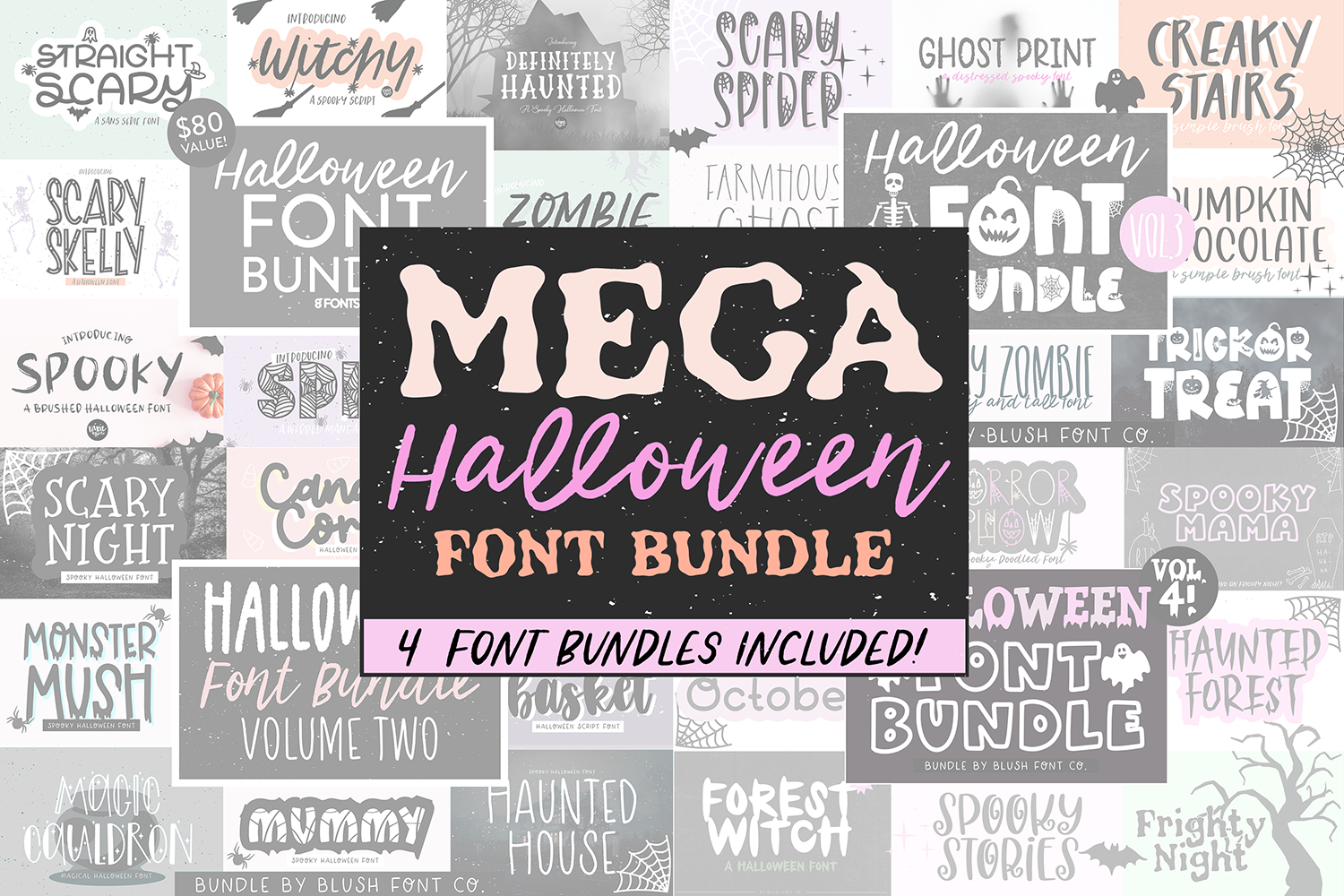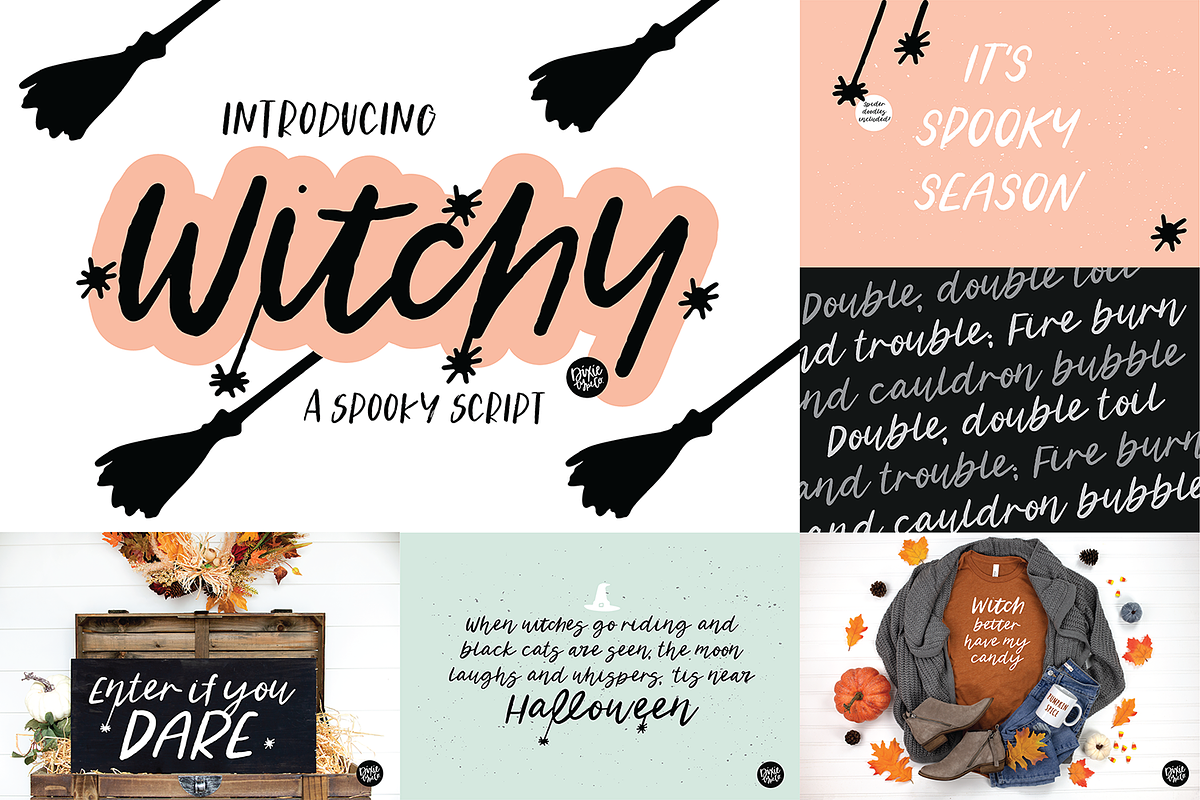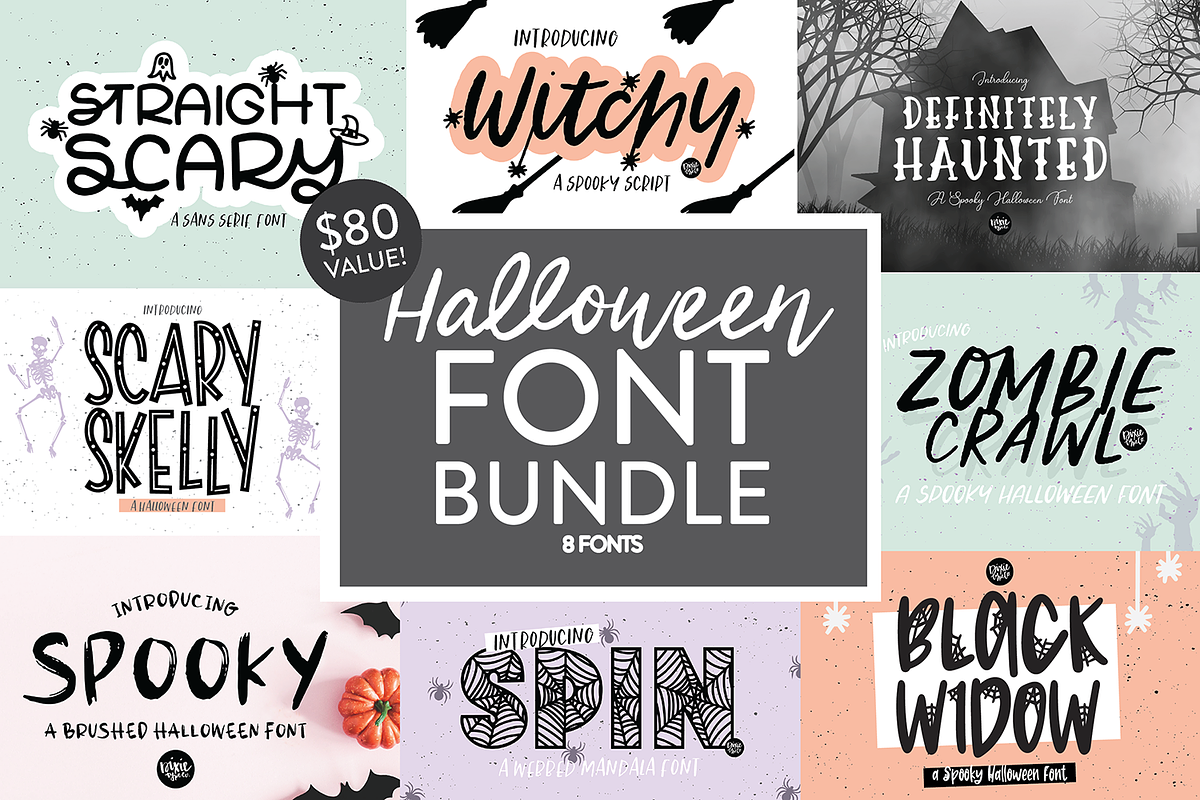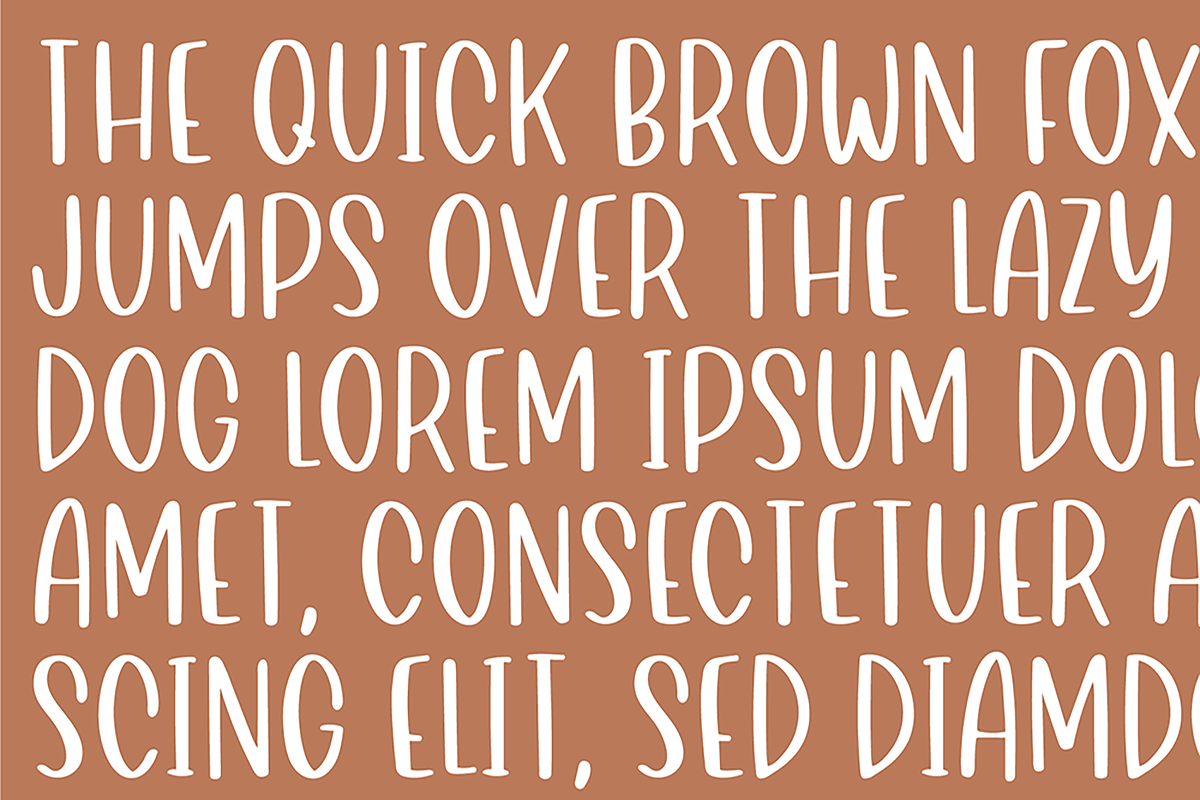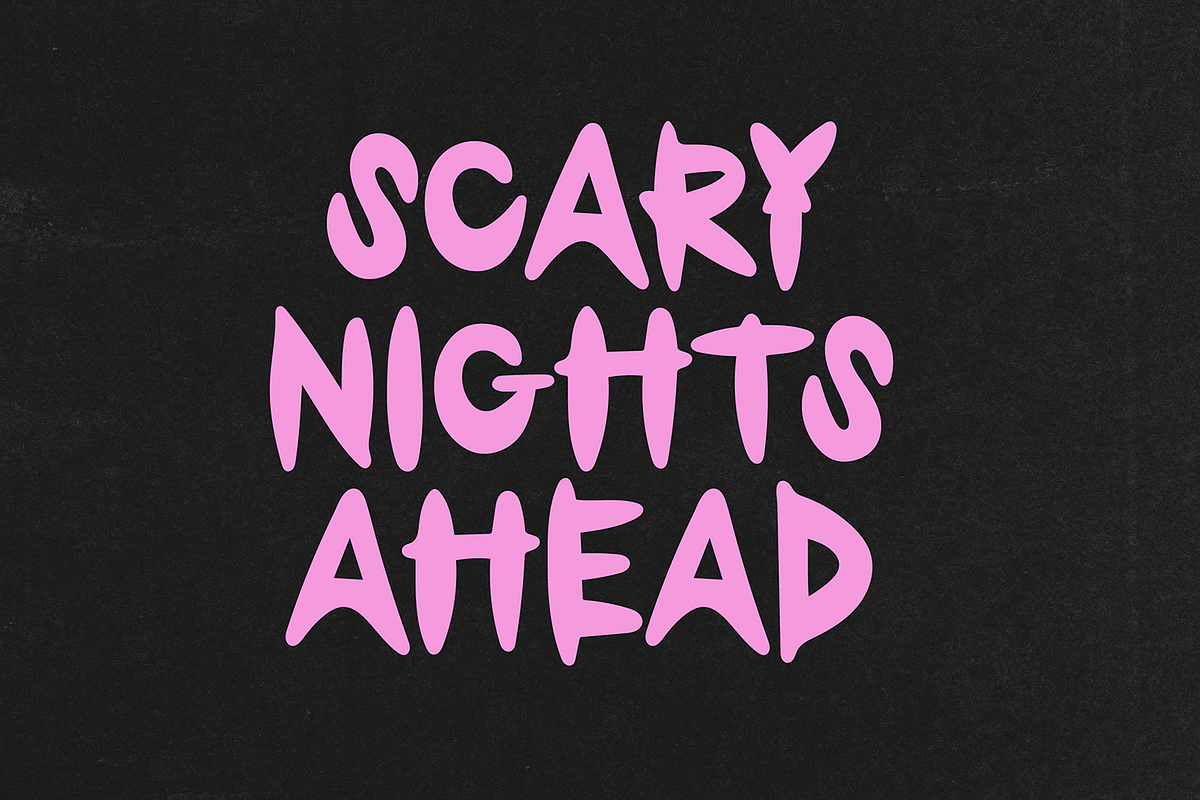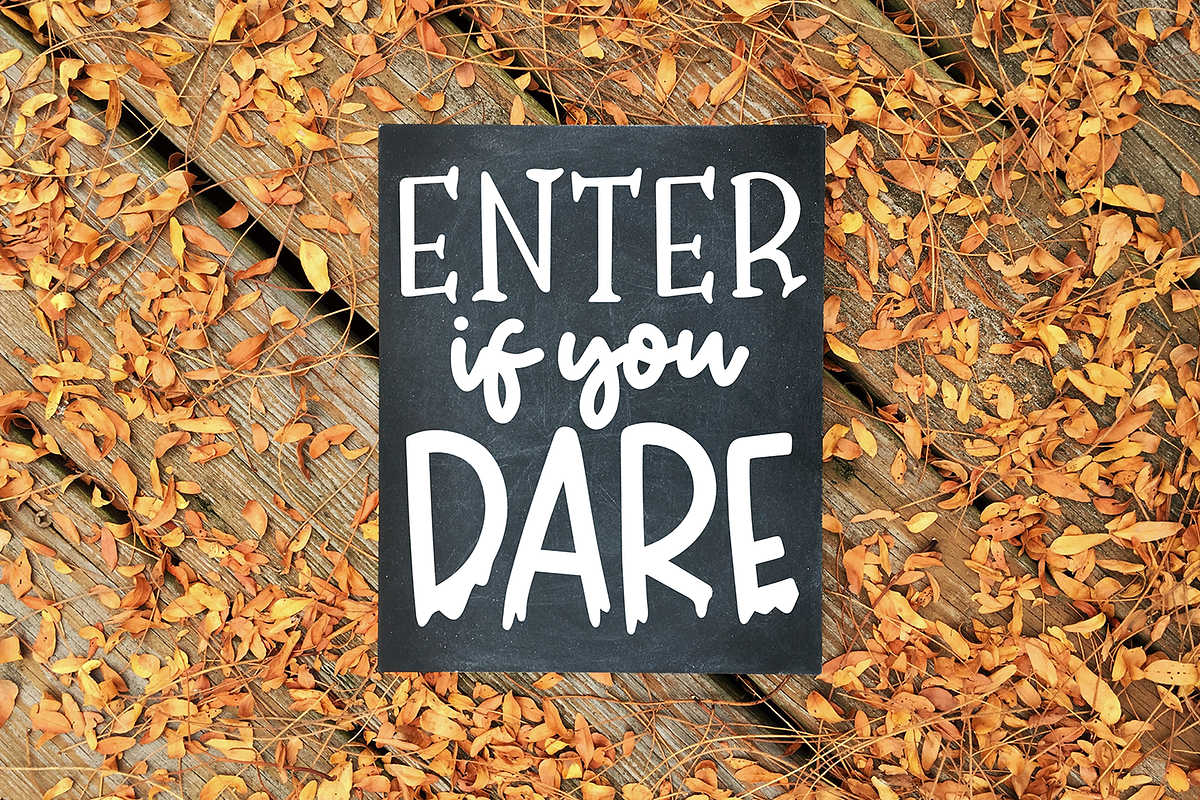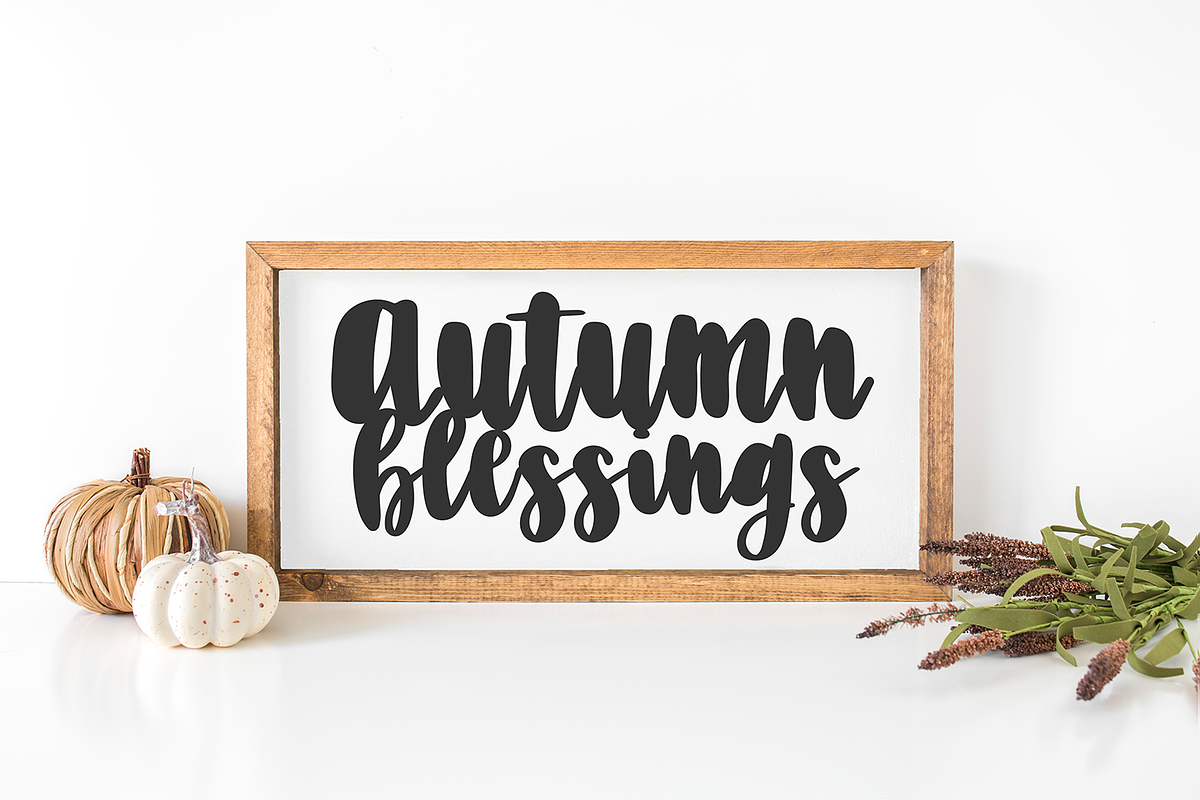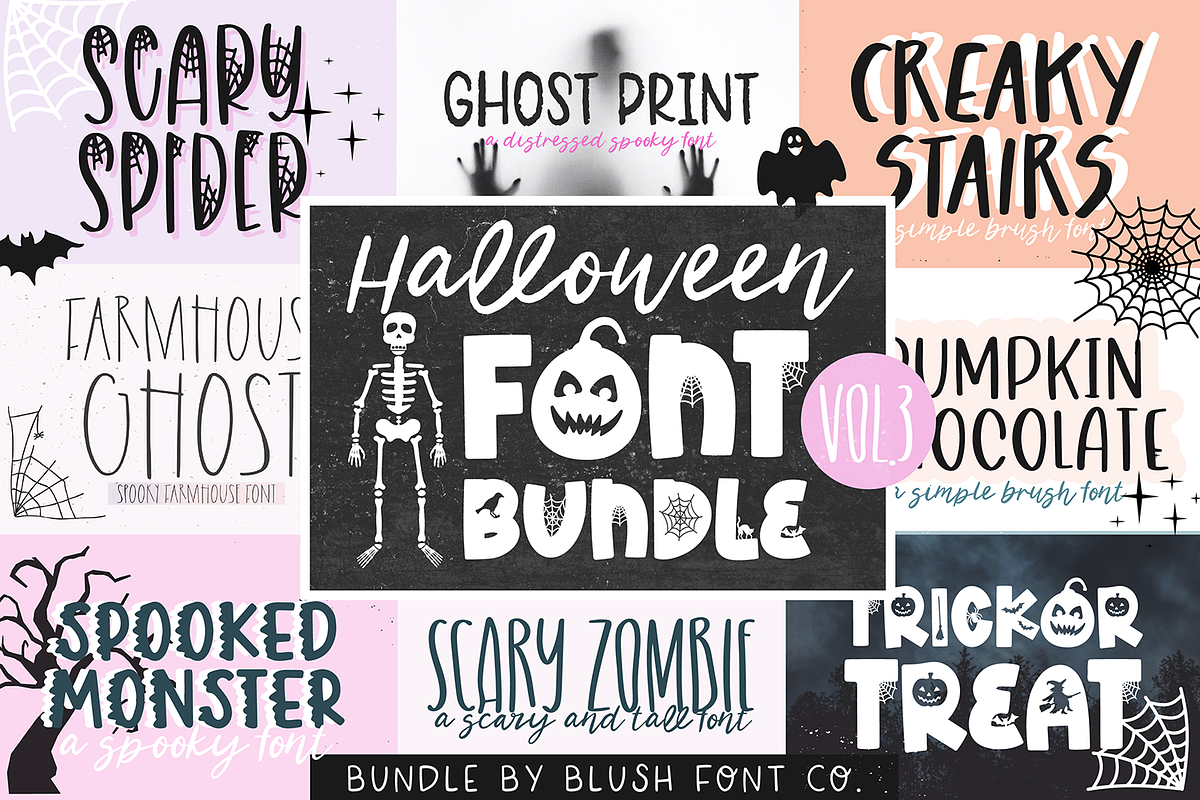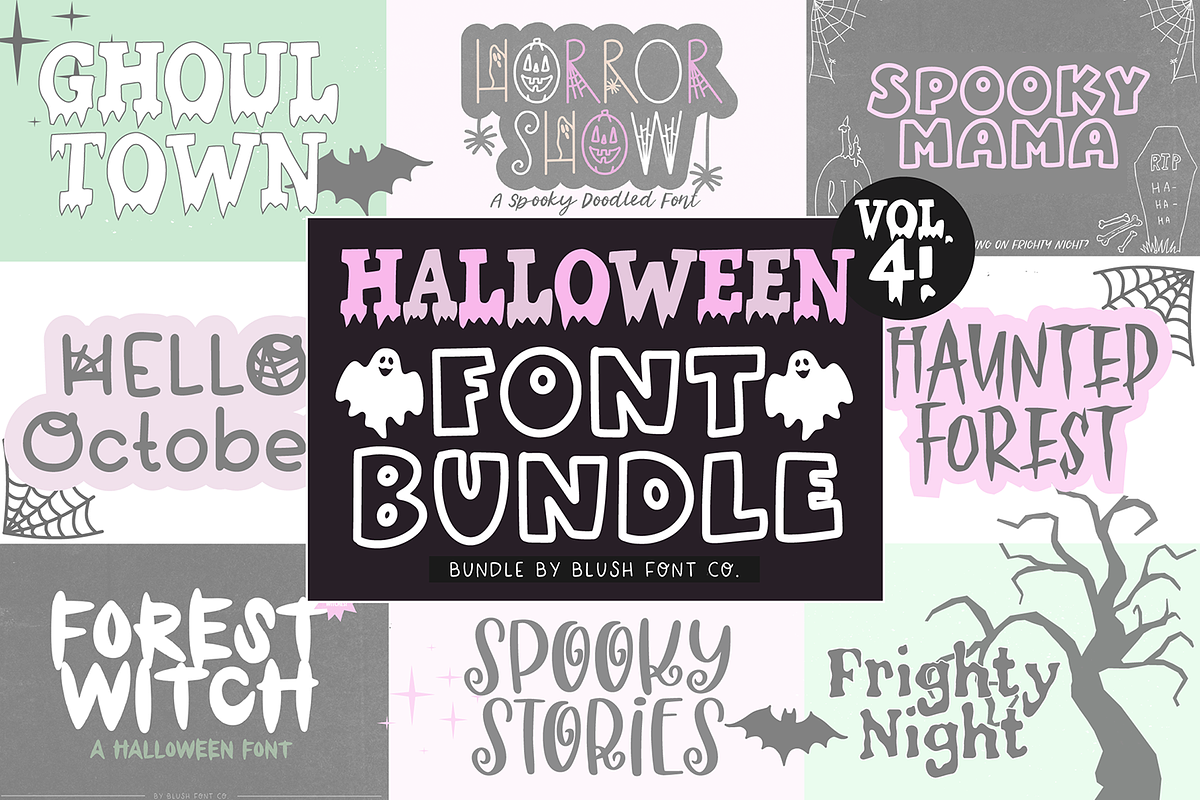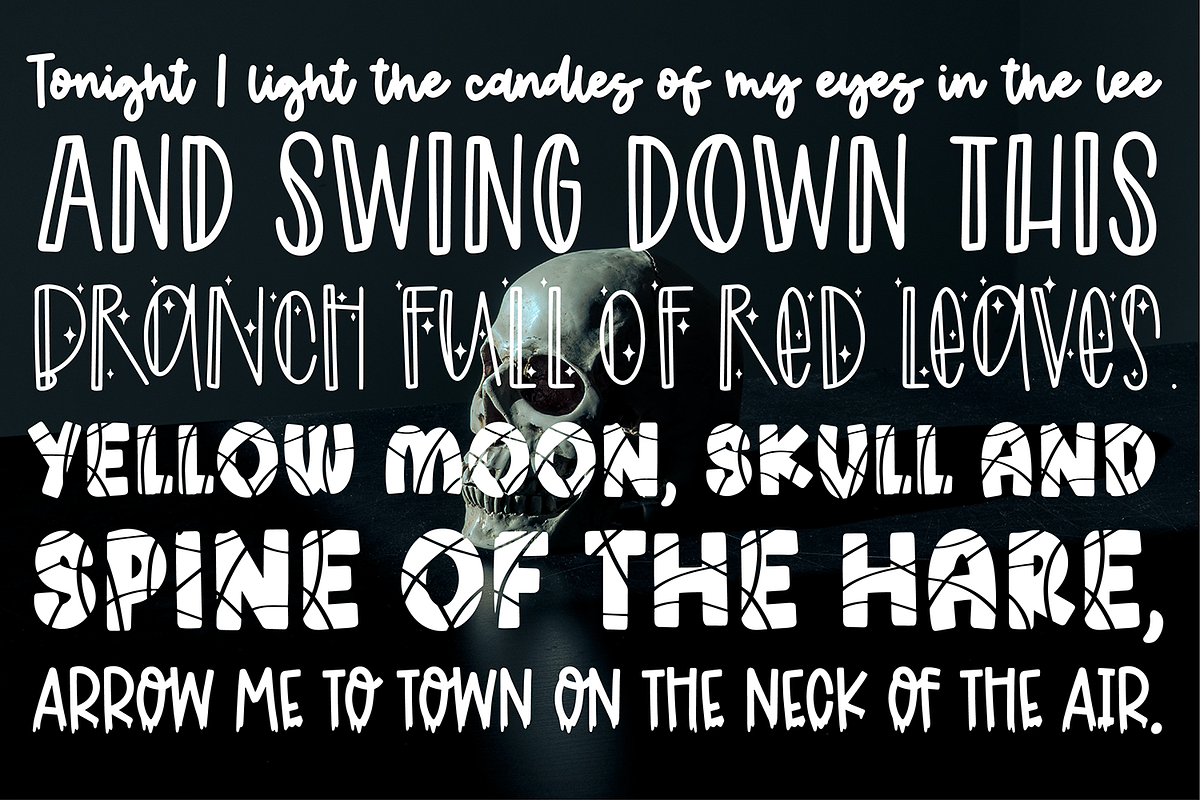
MEGA HALLOWEEN FONT BUNDLE V1
This mega bundle includes 4 brush font bundles.
HALLOWEEN FONT BUNDLE VOL 1 HALLOWEEN FONT BUNDLE VOL 2 HALLOWEEN FONT BUNDLE VOL 3 & new HALLOWEEN FONT BUNDLE VOL 4